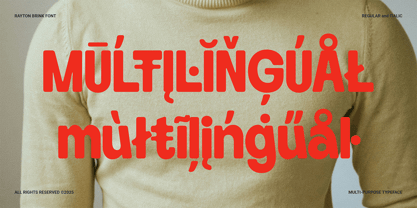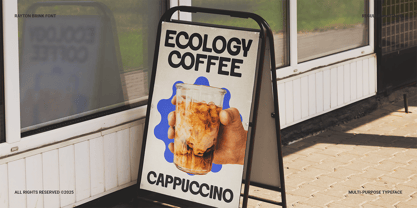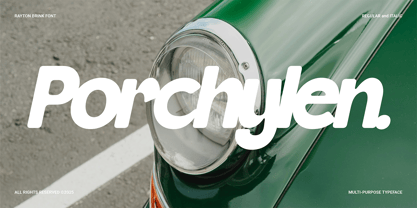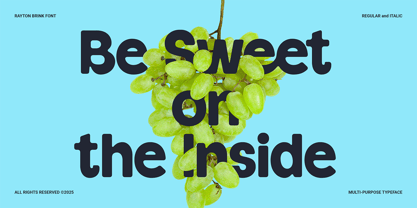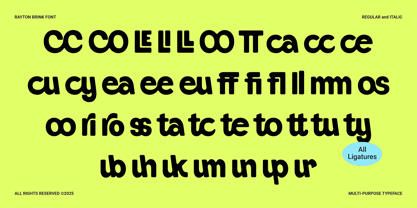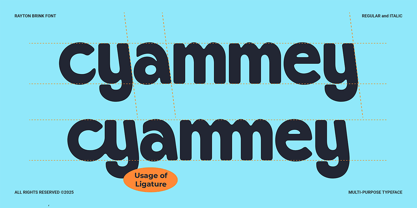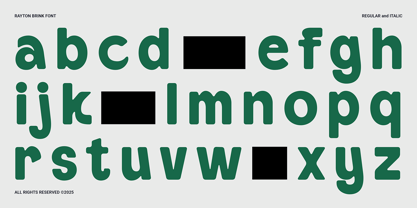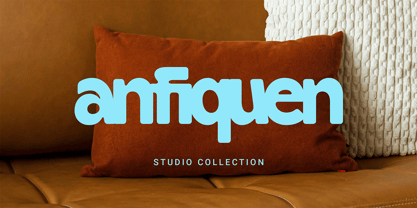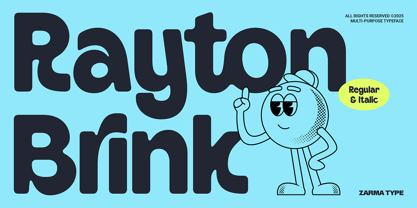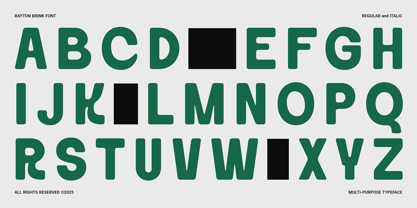
Rayton Brink
by Azzam Ridhamalik
The Rayton Brink Font Family was designed by Azzam Ridhamalik and published by Azzam Ridhamalik. Rayton Brink contains 2 styles and family package options. More about this family
Rayton Brink is a friendly rounded font designed to infuse your brand identity with joy, clarity, and approachability. With its smooth, thick curves and playful presence, this typeface brings a sense of warmth and creativity to every visual. Whether you're crafting a bold homepage headline, a product label, or a vibrant display, Rayton Brink delivers consistency without sacrificing character. Each letter feels intentional, forming a strong, personable voice that bridges modern aesthetics with nostalgic charm. The font’s versatility lies in its ability to maintain high legibility while adding a touch of fun and elegance to any layout.
Inspired by bubbly aesthetics and childlike wonder, Rayton Brink thrives across various branding needs—especially those targeting lifestyle, food, tech, and children-oriented markets. Its rounded terminals and geometric construction offer clarity and balance, while its lively energy encourages emotional connection. With OpenType features such as multilingual support, alternate styles, and punctuation essentials, this font is as practical as it is visually delightful. Rayton Brink isn’t just a font—it’s a storytelling tool for brands that want to feel approachable, modern, and genuinely engaging.